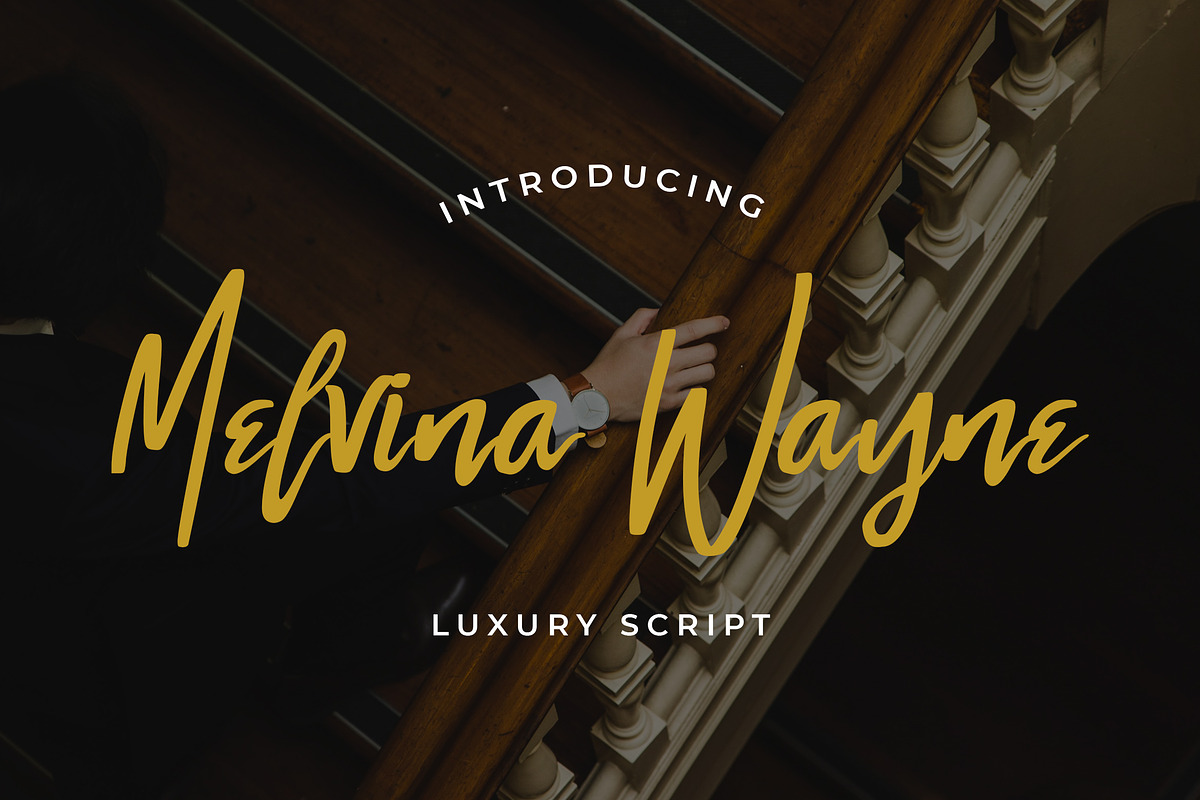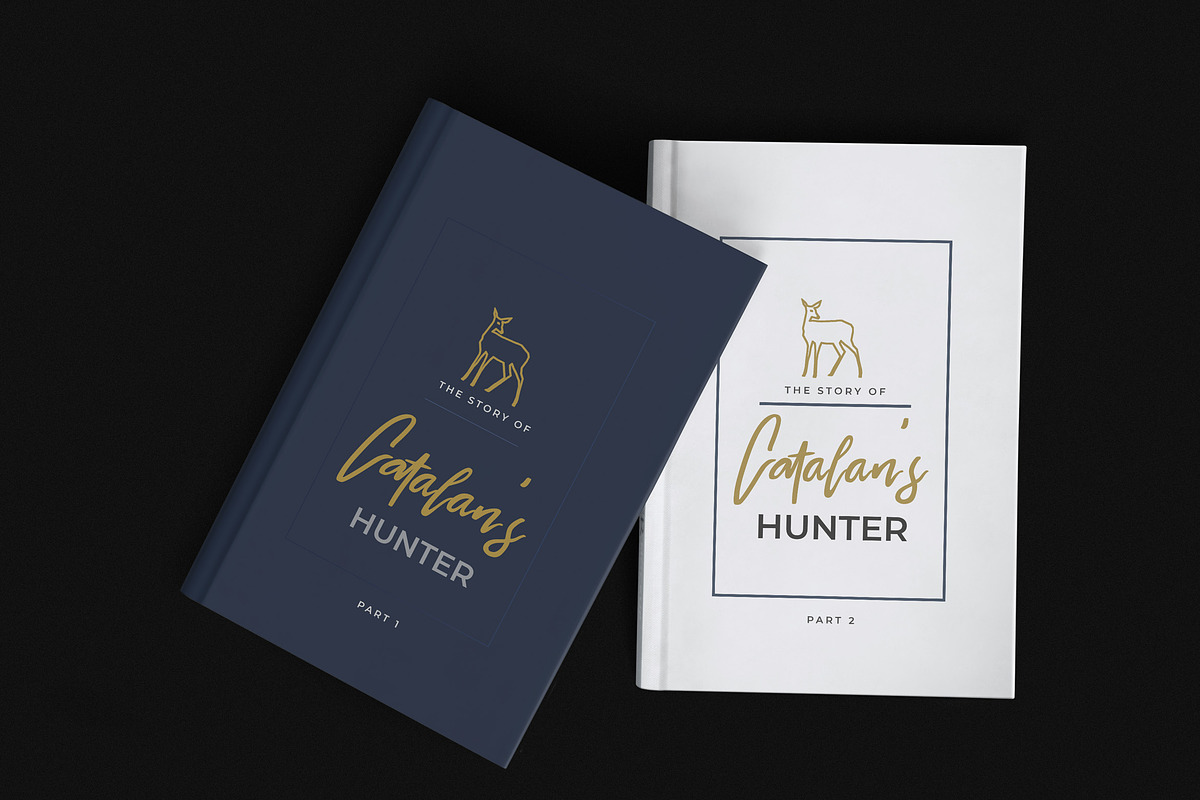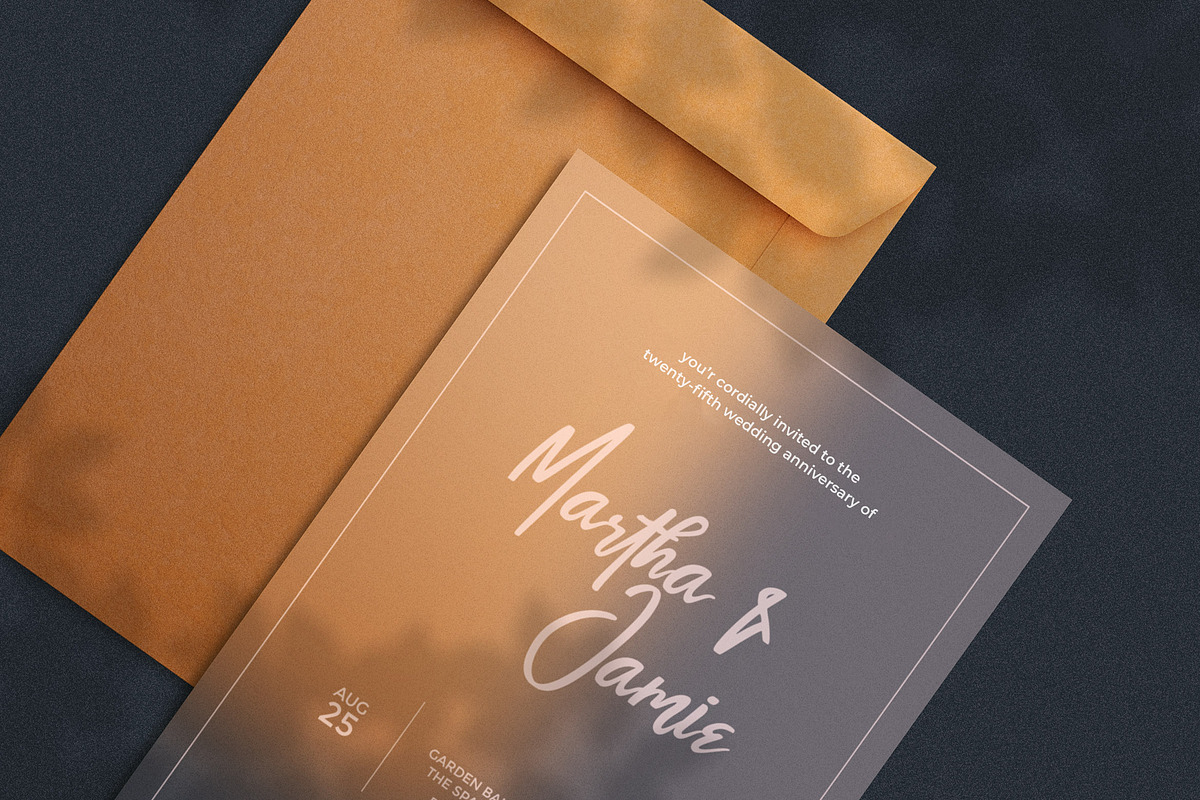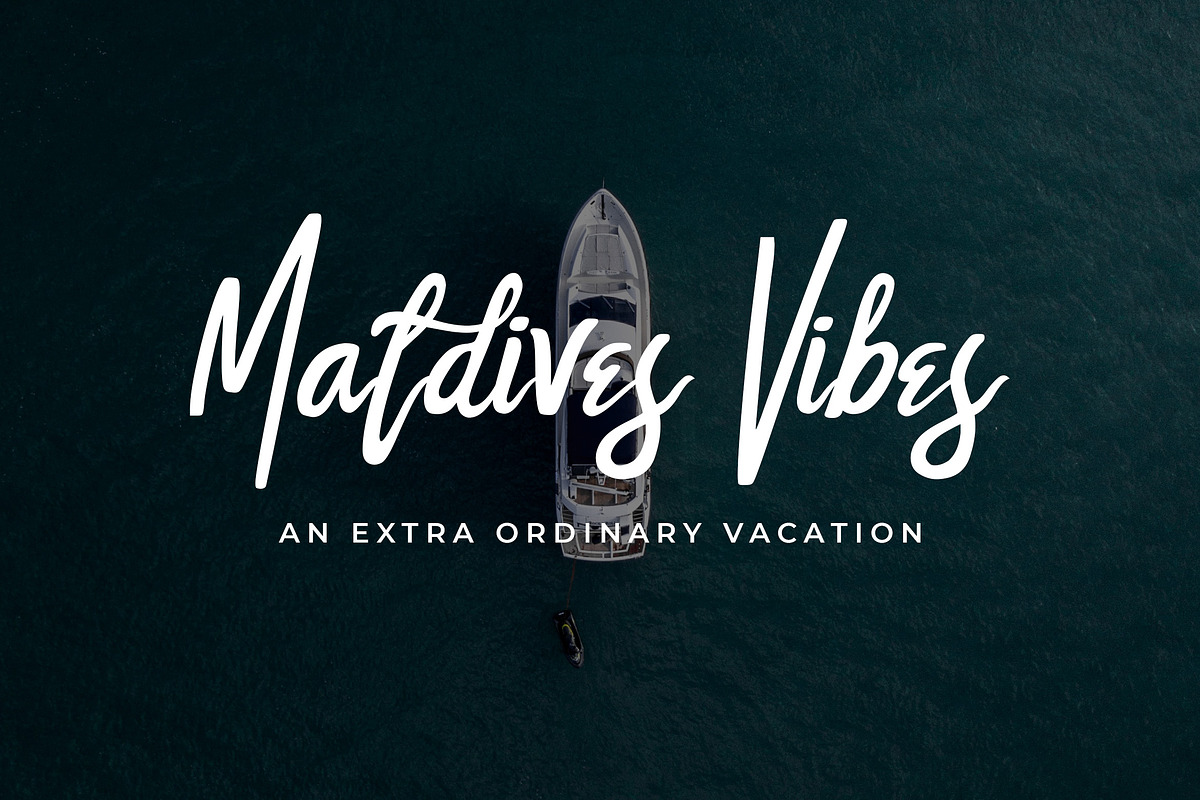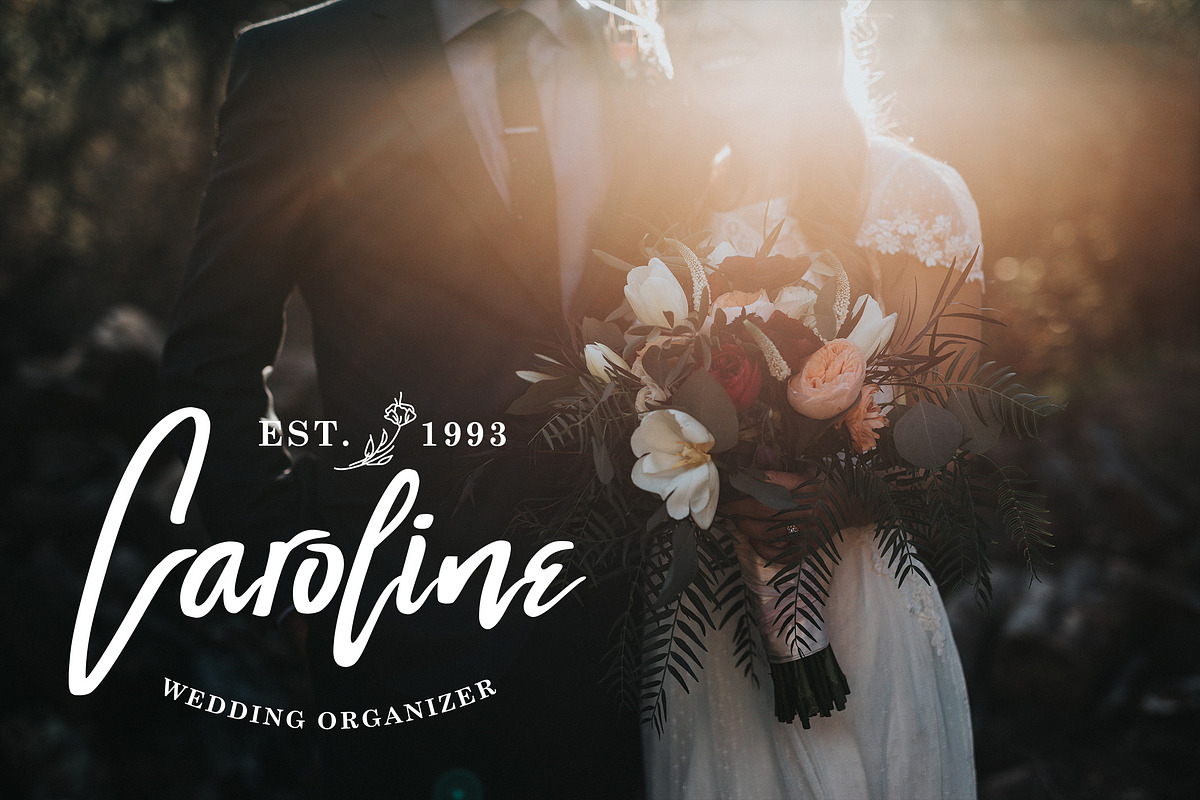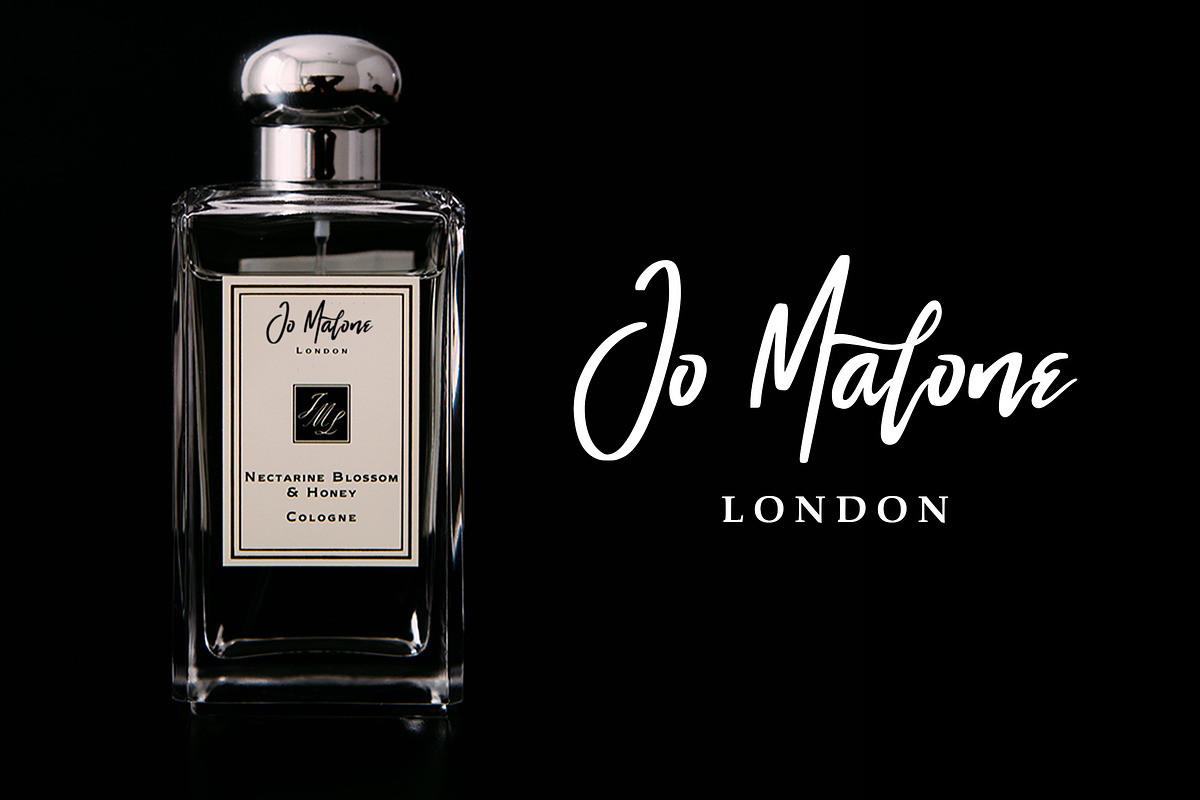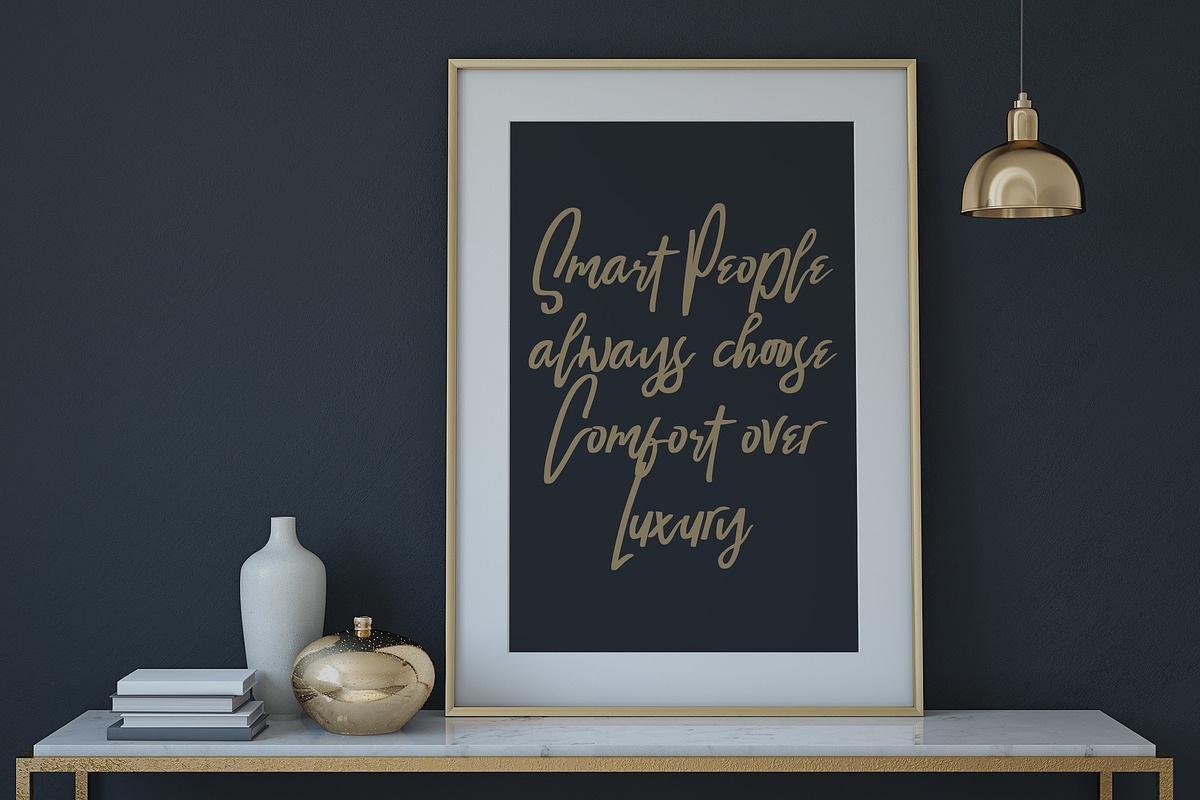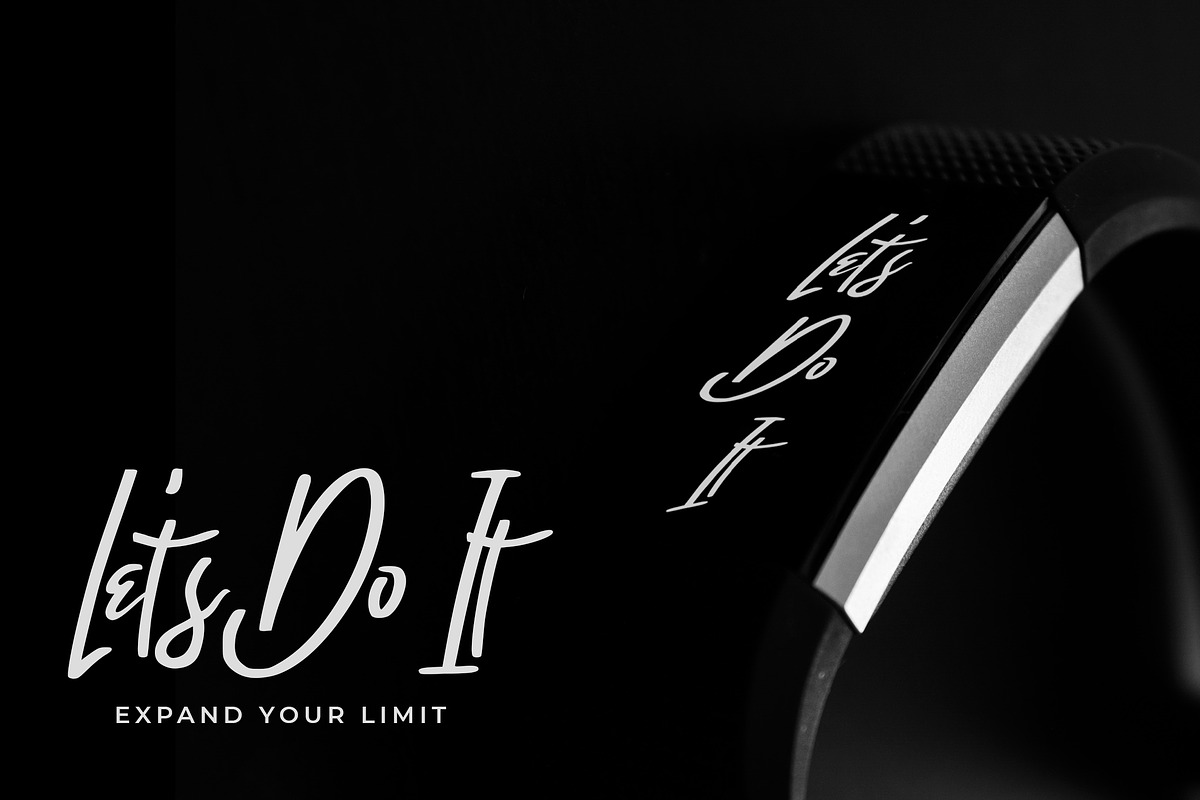
Melvina Wayne - Luxury Script Font
Introducing Melvina Wayne - Luxury Script Font
Melvina Wayne is a Luxury Signature Script Font with Handwritten Style. The Melvina Wayne font was created with authentic handwritting brush pen. This font is perfect for fashion brand, wedding invitation, business card, logo brand, signature, and then calligraphy.
- This Font Template contains Classy, Elegant, Creative, Cool and has a Unique Concept.
Why Melvina Wayne - Luxury Script Font is worth a look
Melvina Wayne - Luxury Script Font by StringLabs fits naturally into Branding, posters, packaging, typography.